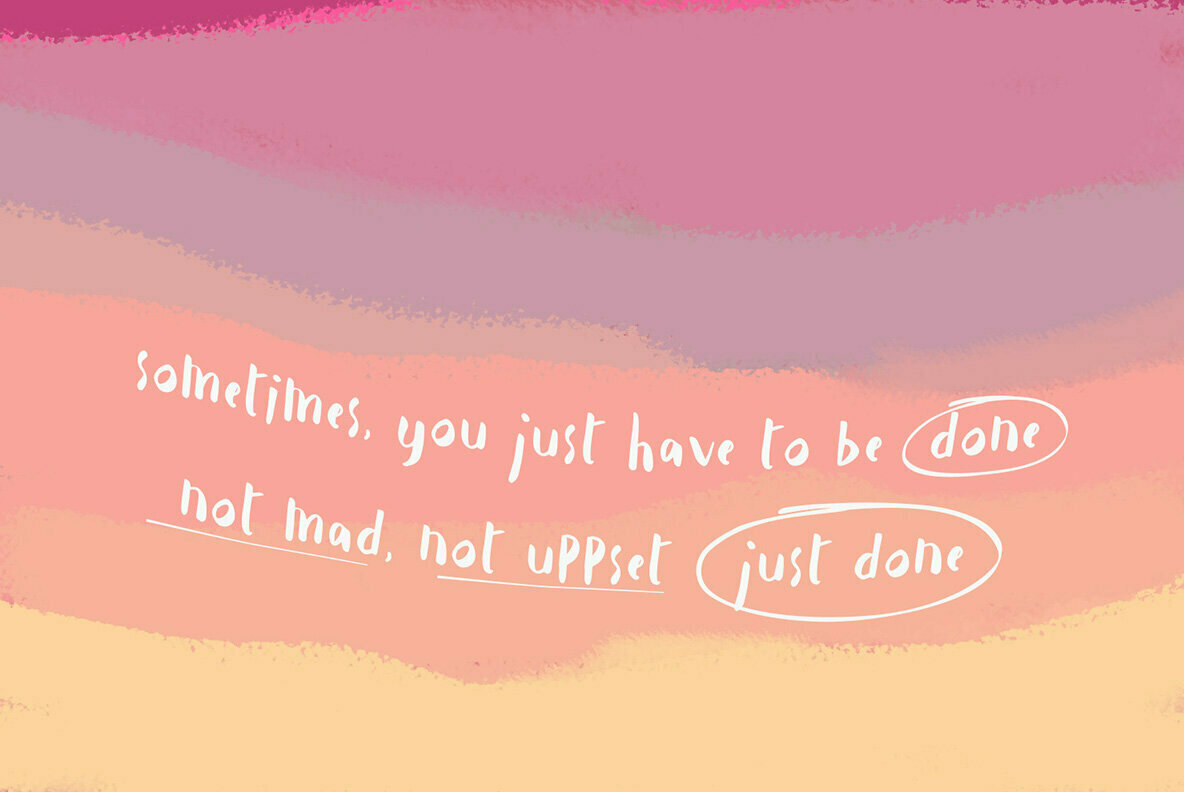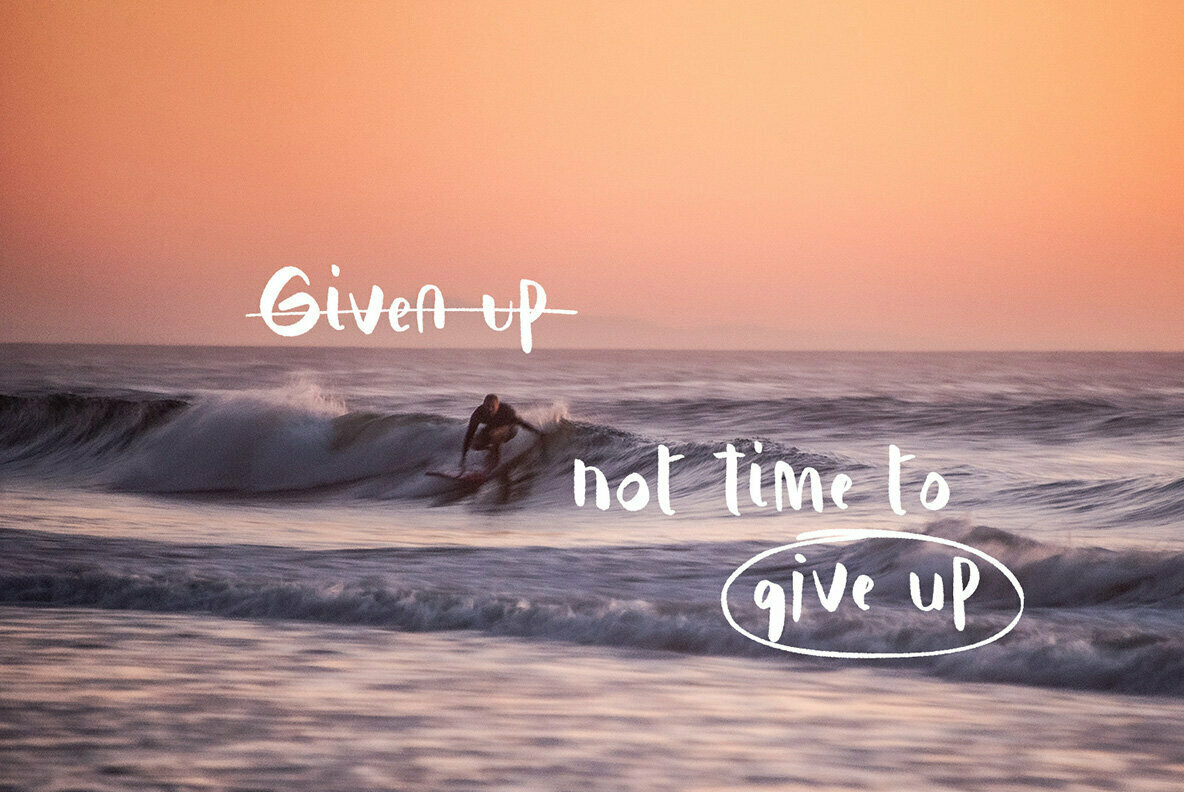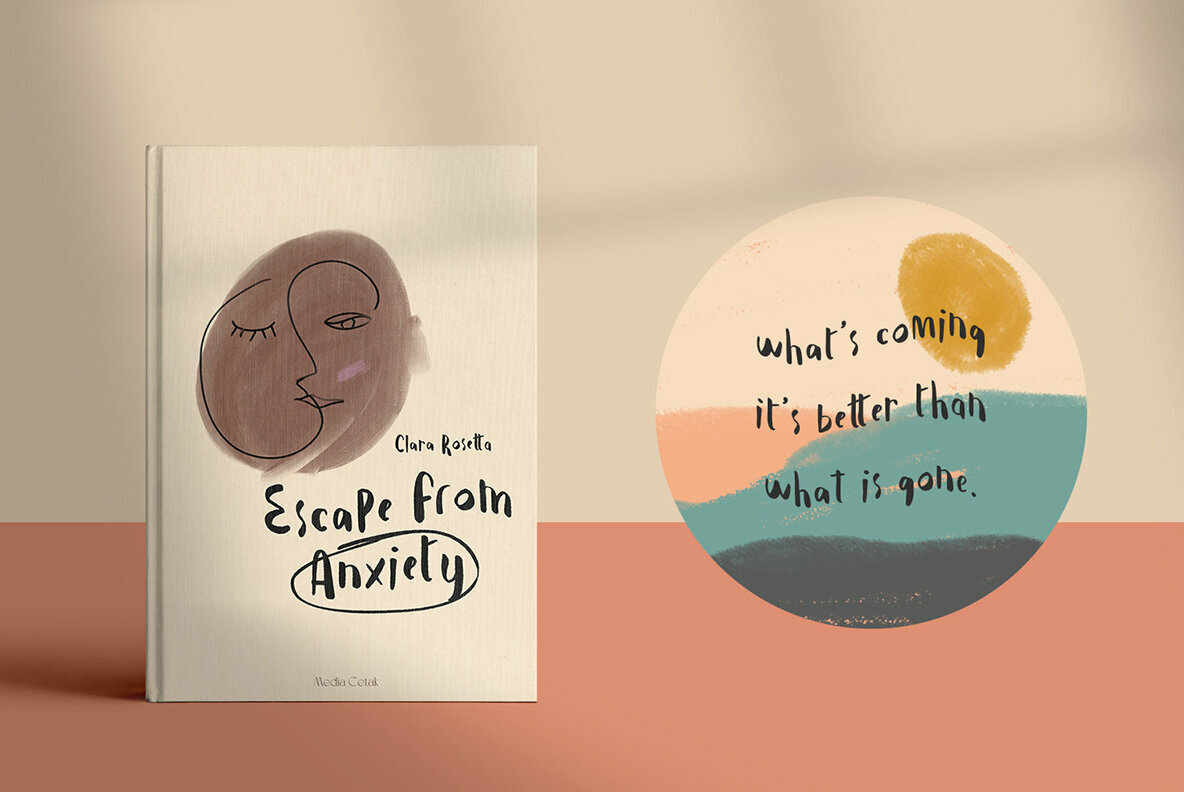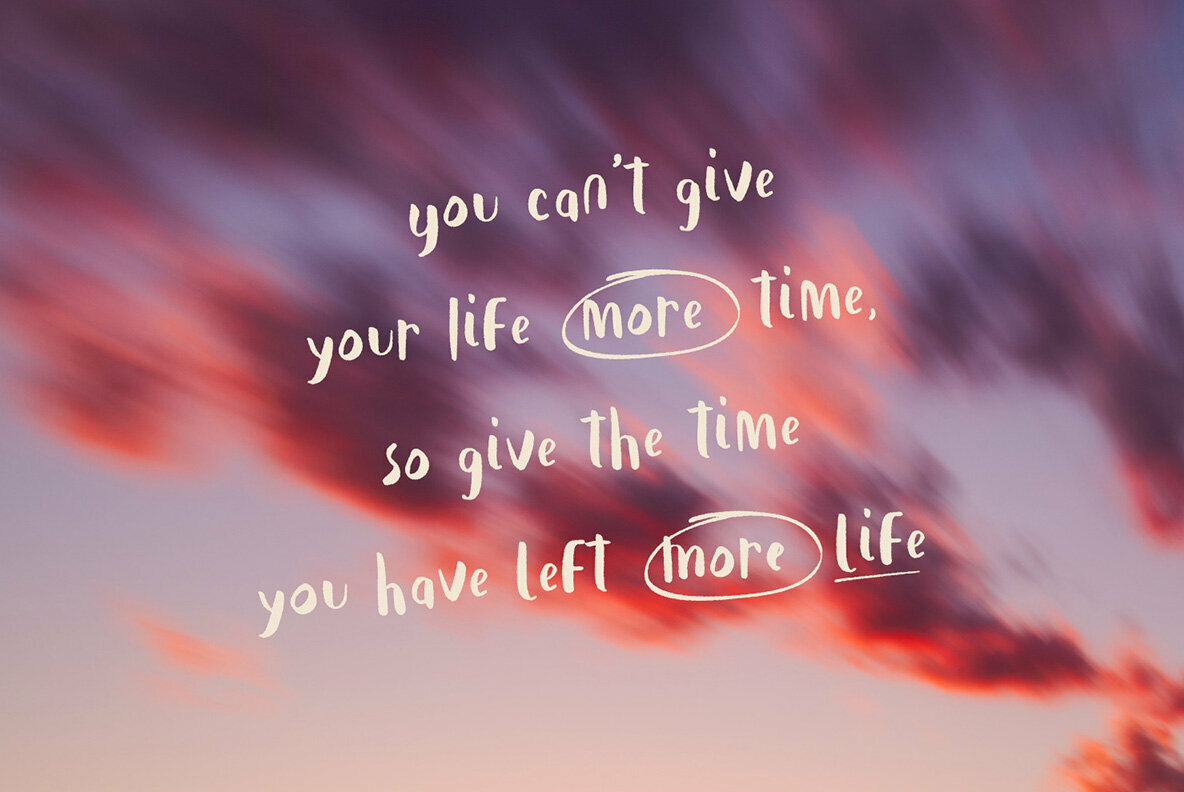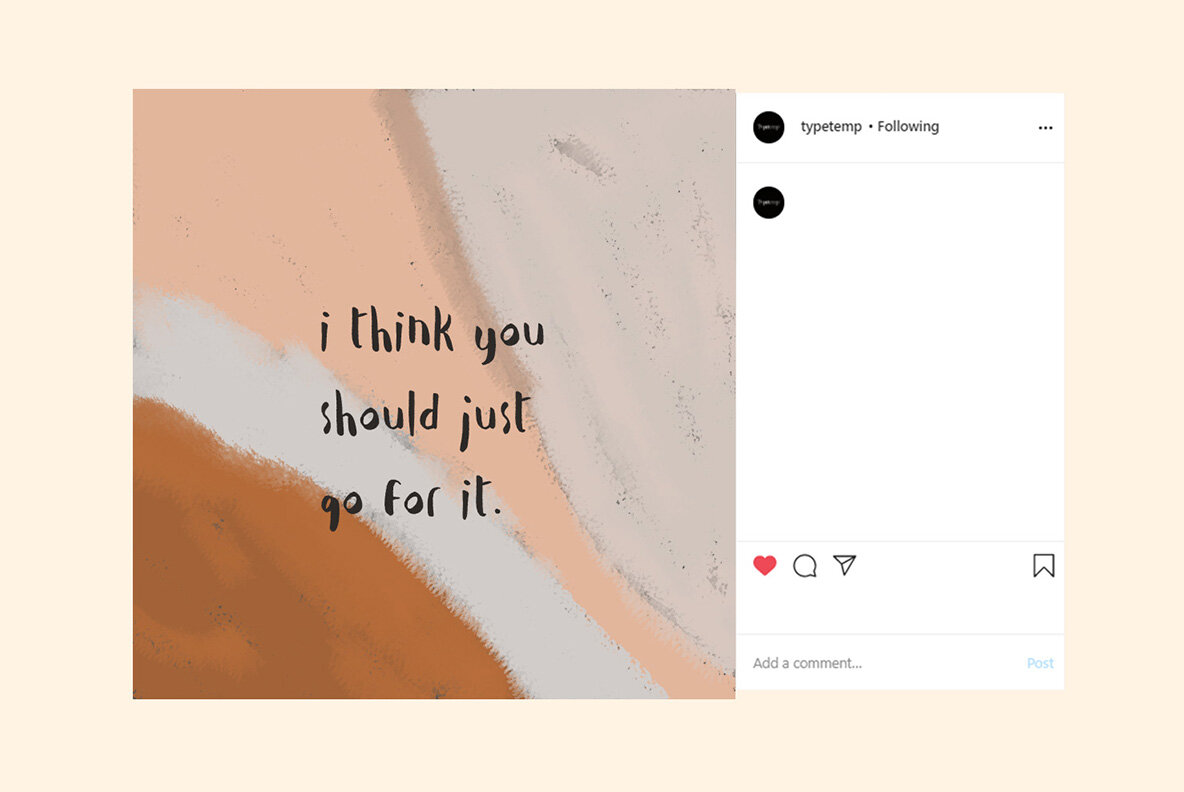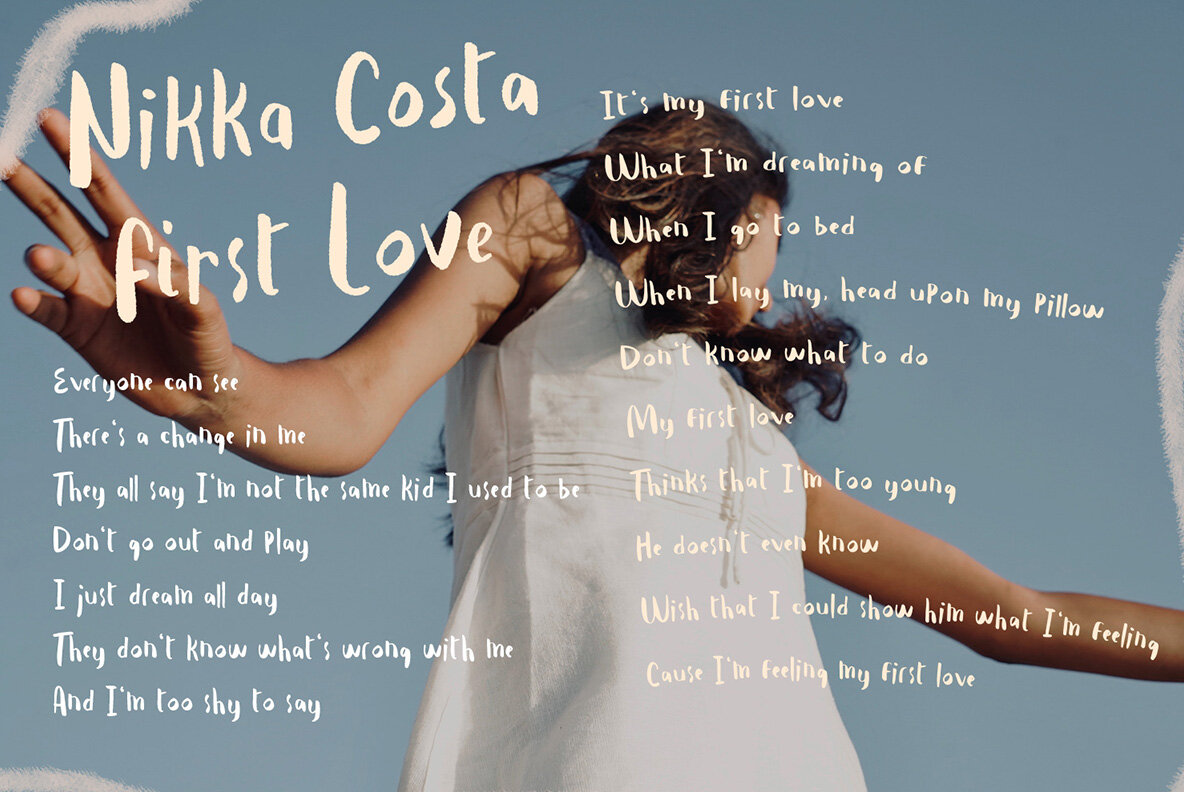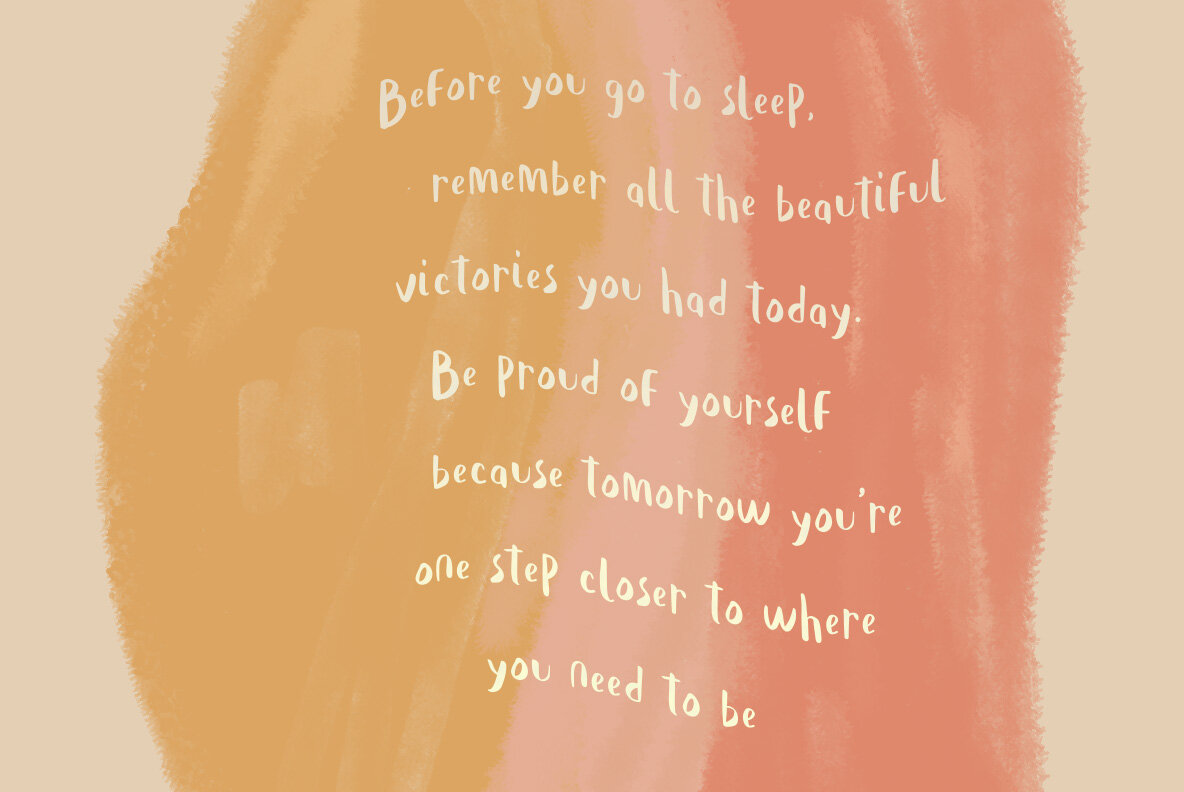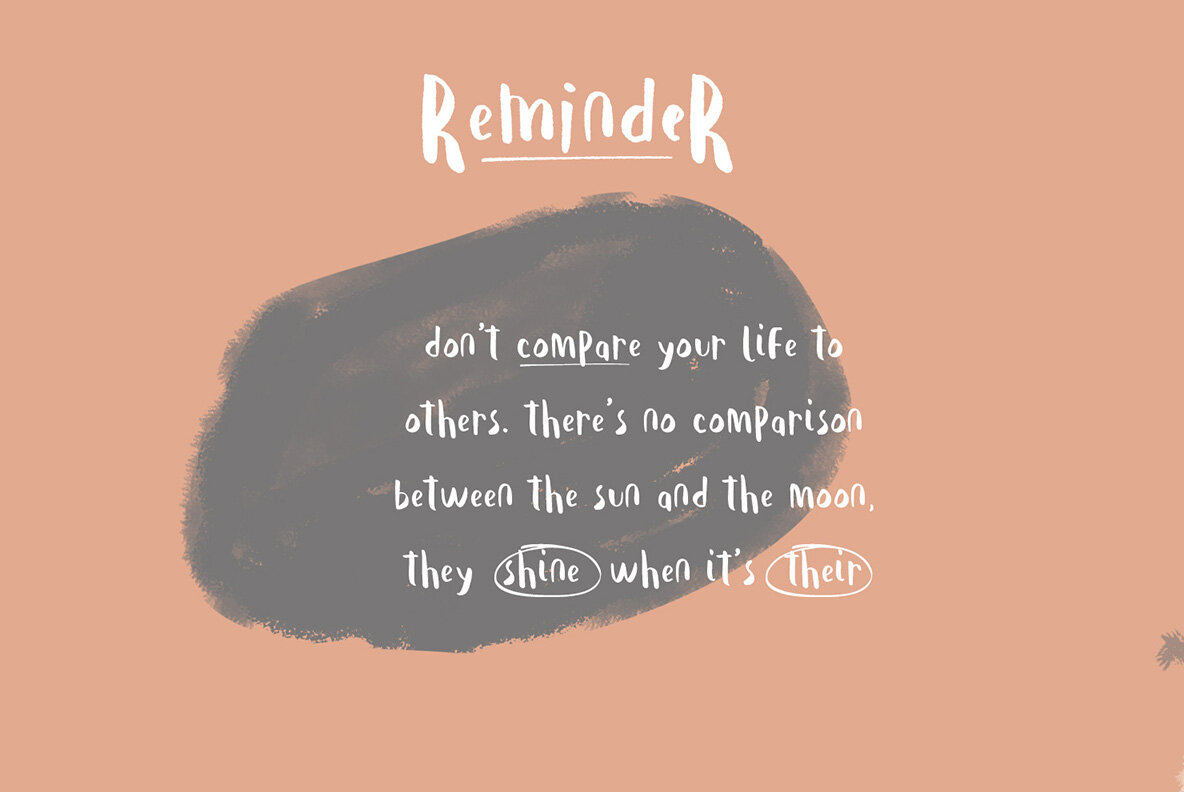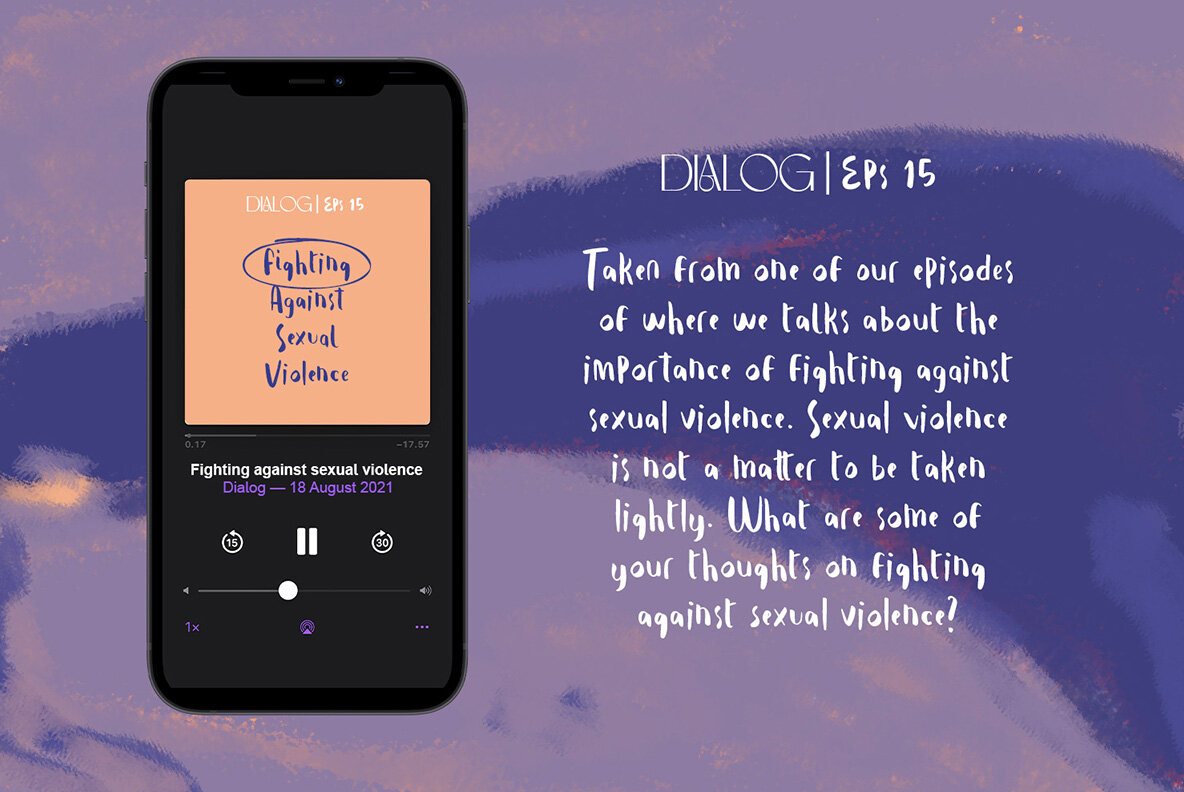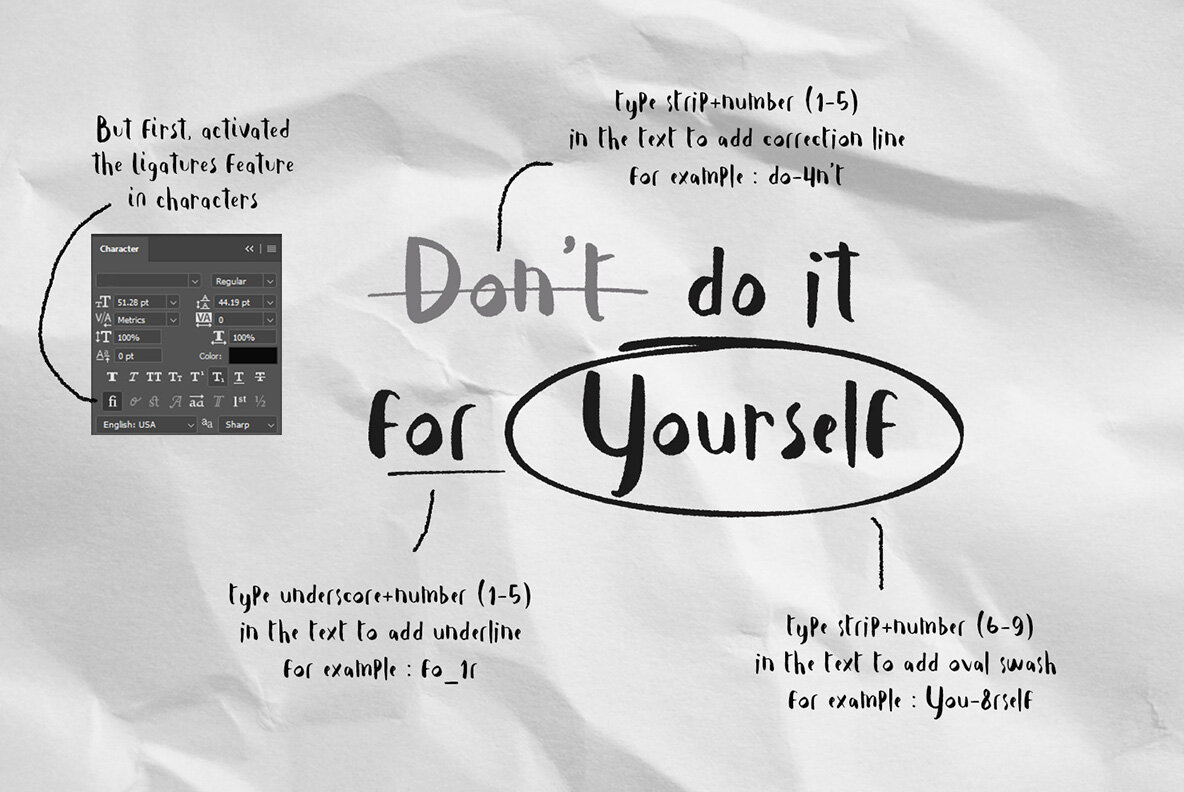
Bleu Fumee Font
Bleu Fumee, crafted by Typetemp Studio, captures the essence of handwritten notes, offering an authentic and personal touch to your designs. Perfectly suited for quotes and social media content, this font comes with two variants of each letter and ligatures to ensure a natural, seamless appearance in your projects.Bleu Fumee: Handwritten Charm for Social Media